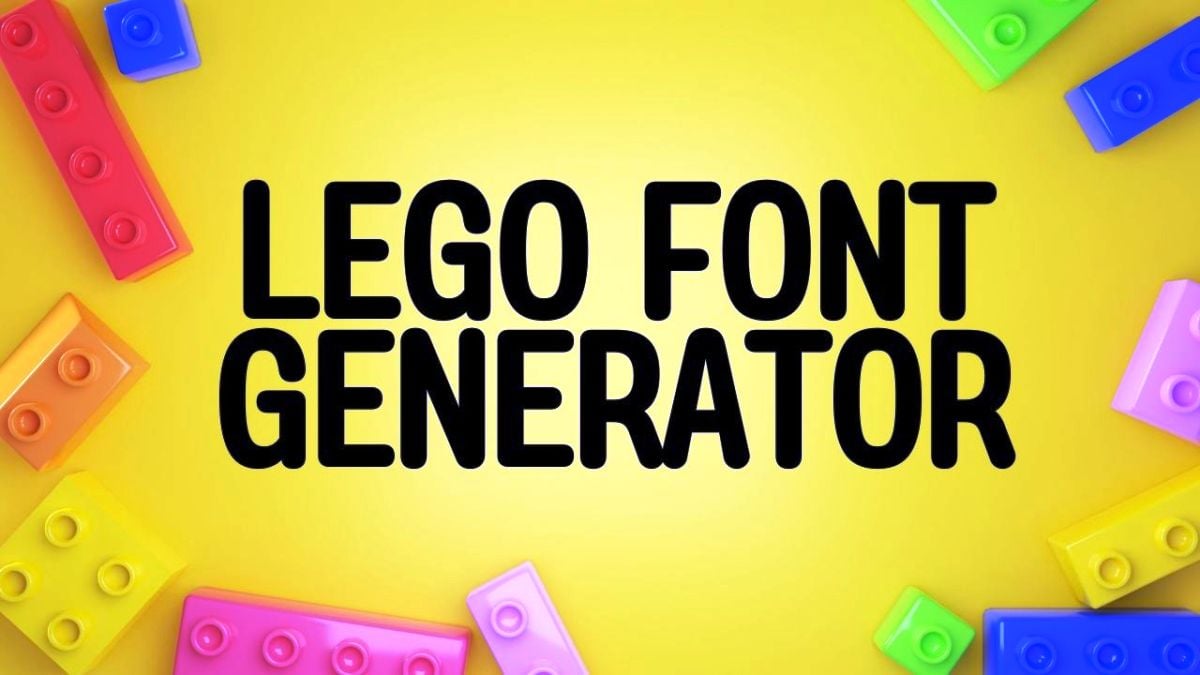
🧱 LEGO Font Generator
Build Amazing Block Style Text with Authentic LEGO Fonts! Create stunning typography with colorful brick-inspired designs perfect for logos, posters, and creative projects.
Classic Builder
LEGO
Traditional red LEGO style
Blue Architect
BUILD
Professional blue design
Yellow Sunshine
BRIGHT
Bright and cheerful yellow
Green Nature
GROW
Fresh green building style
Orange Energy
POWER
Energetic orange vibes
Rainbow Master
MAGIC
Colorful rainbow gradient
Chrome Premium
STEEL
Metallic chrome finish
Fire Brick
FLAME
Hot fire gradient effect
Ice Block
FROST
Cool ice crystal style
Neon Glow
NEON
Electric neon glow
Gold Brick
GOLD
Luxurious golden finish
Space Block
SPACE
Cosmic purple adventure
Build bold, blocky titles with the Lego Font Generator. Create stud‑style text in classic primary colors—perfect for thumbnails, gaming banners, posters, birthday invites, and merch mockups.
Key Features
🧱 Blocky, Brick‑Inspired Style
Chunky, high‑impact letterforms that echo toy bricks. Outline, shadow, and stud‑accent ideas included for an authentic look.
⚡ Instant Preview
Type your text in the tool to preview styles fast—refine size, spacing, color, stroke, and shadow in seconds.
🎯 Creator‑Ready Presets
Pick classic red, yellow, blue combos, crisp strokes, and depth shadows for standout headlines.
Best Use Cases
• Thumbnails & Banners: Gaming, vlogs, retro toys, DIY builds, review channels.
• Events & Invitations: Birthdays, school fairs, STEM clubs, maker meets.
• Posters & Prints: Kids’ rooms, brick party decor, classroom visuals.
• Branding Touches: Pop‑up displays, packaging accents, limited‑run merch.
Design Tips for Authentic Lego‑Style Text
• Use Primary Colors: Start with red, yellow, blue. Add white stroke and a dark drop shadow for punch.
• Stack for Depth: Duplicate the text layer, offset slightly, and darken to simulate stacked bricks.
• Stud Accents: Add circular highlights on top edges for a subtle stud sheen effect.
• Bold Kerning: Slightly increase letter spacing and keep strokes thick for legibility at thumbnail sizes.
• Contrast Backgrounds: Dark/neutral backgrounds help bright blocks pop; avoid busy textures behind main titles.
Why does it look “Lego‑like”?
The look is achieved by blocky shapes, primary colors, bold strokes, and subtle depth/shadow—hallmarks of brick‑style lettering.
Does it support multiple languages?
Most sets prioritize Latin characters. Pair with a compatible body font for other scripts and reserve brick style for headings.